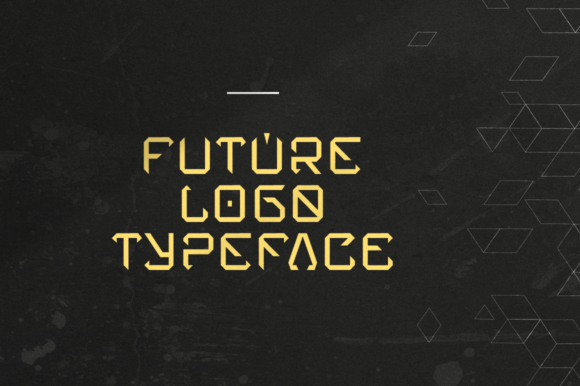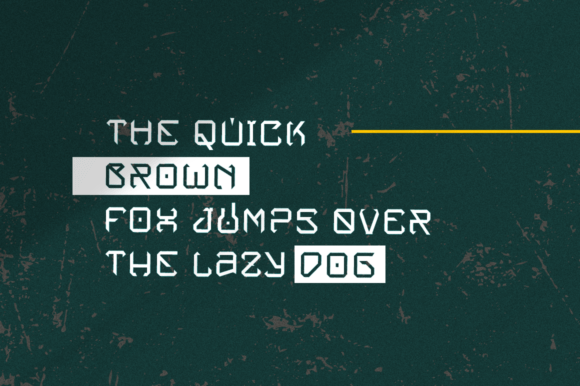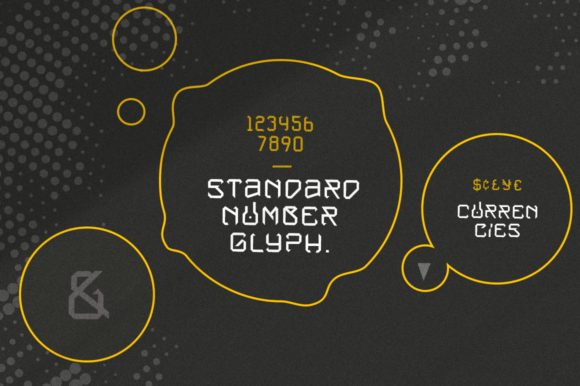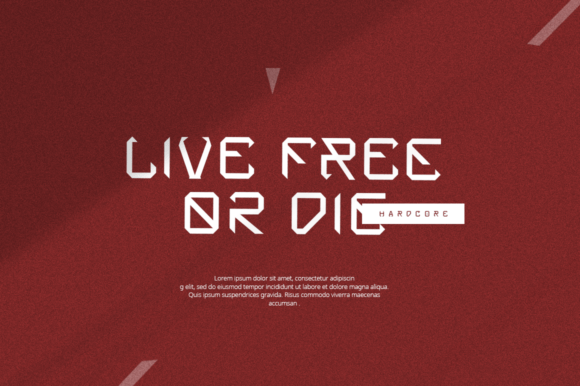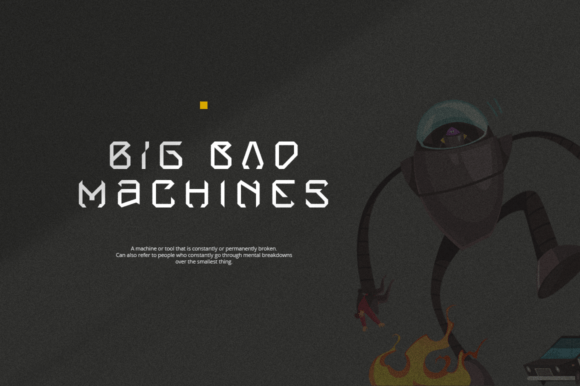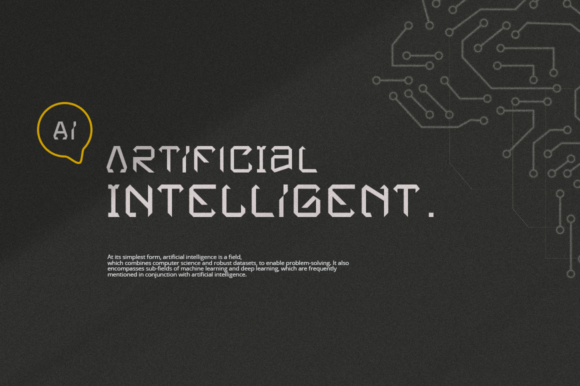
Experience the Evolution of Typography with Equiva Font
In the realm of typography, fonts are not just a means of communication, but an expression of style, creativity, and innovation. Among the myriad of fonts available, Equiva stands out as a beacon of modernity and elegance. This contemporary font is meticulously designed to embody the essence of cutting-edge appeal, making it an ideal choice for designers and crafters looking to infuse their projects with a sense of progress and innovation.
The Design Philosophy of Equiva
Equiva’s design is rooted in a deep understanding of what makes a font truly impactful. Every aspect of its clean, precise design illuminates its modern appeal. From its precise angles to its razor-sharp edges, Equiva summons a sense of progress and innovation. The font’s geometrical construct and clean-cut lines give it a sense of order and clarity, while its sharp angles instill a dash of edginess and intrigue.
Key Features of Equiva Font
- Clean and Precise Design: Equiva’s design is characterized by its clean lines and precise angles, making it perfect for projects that require a modern and sleek look.
- Cutting-Edge Appeal: The font’s cutting-edge appeal is evident in its razor-sharp edges and futuristic aesthetic, making it ideal for projects that require a sense of innovation and progress.
- Elegant and Modern: Equiva’s elegant and modern design makes it perfect for impactful headlines, distinct logos, and captivating branding materials.
- Adaptable Stylization: The font’s adaptable stylization makes it suitable for a wide range of applications, from technology and science fiction to avant-garde design.
Applications of Equiva Font
Equiva’s versatility makes it an excellent choice for various design projects. Its striking and elegant stance allows it to dominate any canvas, making it perfect for:
- Impactful Headlines: Equiva’s bold and modern design makes it ideal for creating attention-grabbing headlines that leave a lasting impression.
- Distinct Logos: The font’s unique and futuristic aesthetic makes it perfect for creating distinctive logos that set your brand apart.
- Captivating Branding Materials: Equiva’s adaptable stylization makes it suitable for creating captivating branding materials that resonate with your target audience.
Why Choose Equiva Font?
In a world where design is king, choosing the right font can make all the difference. Here are some reasons why Equiva font stands out from the rest:
- Unique Aesthetic: Equiva’s futuristic aesthetic sets it apart from other fonts, making it perfect for projects that require a sense of innovation and progress.
- Versatility: The font’s adaptable stylization makes it suitable for a wide range of applications, from technology and science fiction to avant-garde design.
- Elegance and Modernity: Equiva’s elegant and modern design makes it perfect for projects that require a sense of sophistication and style.
In conclusion, Equiva font is a game-changer in the world of typography. Its cutting-edge appeal, elegant design, and adaptable stylization make it an ideal choice for designers and crafters looking to infuse their projects with a sense of progress and innovation. Whether you’re working on a technology project, science fiction story, or avant-garde design, Equiva is the perfect font to take your project to the next level. Explore the next chapter in design with Equiva, and let its dynamic nature drive your projects into a new era.